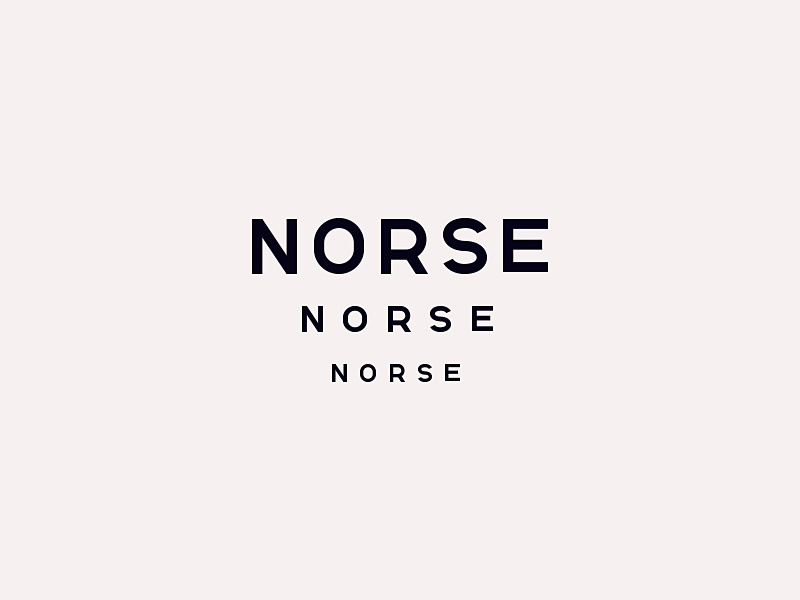
Own Custom font - NORSE
My second font debut, this time I'm going for geometric font style – Inspired by scandinavian typeface design. For now it's all CAPS but will release lowercase version by enough requests. when finished I will release the font for free